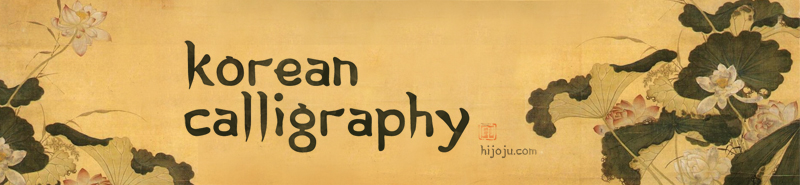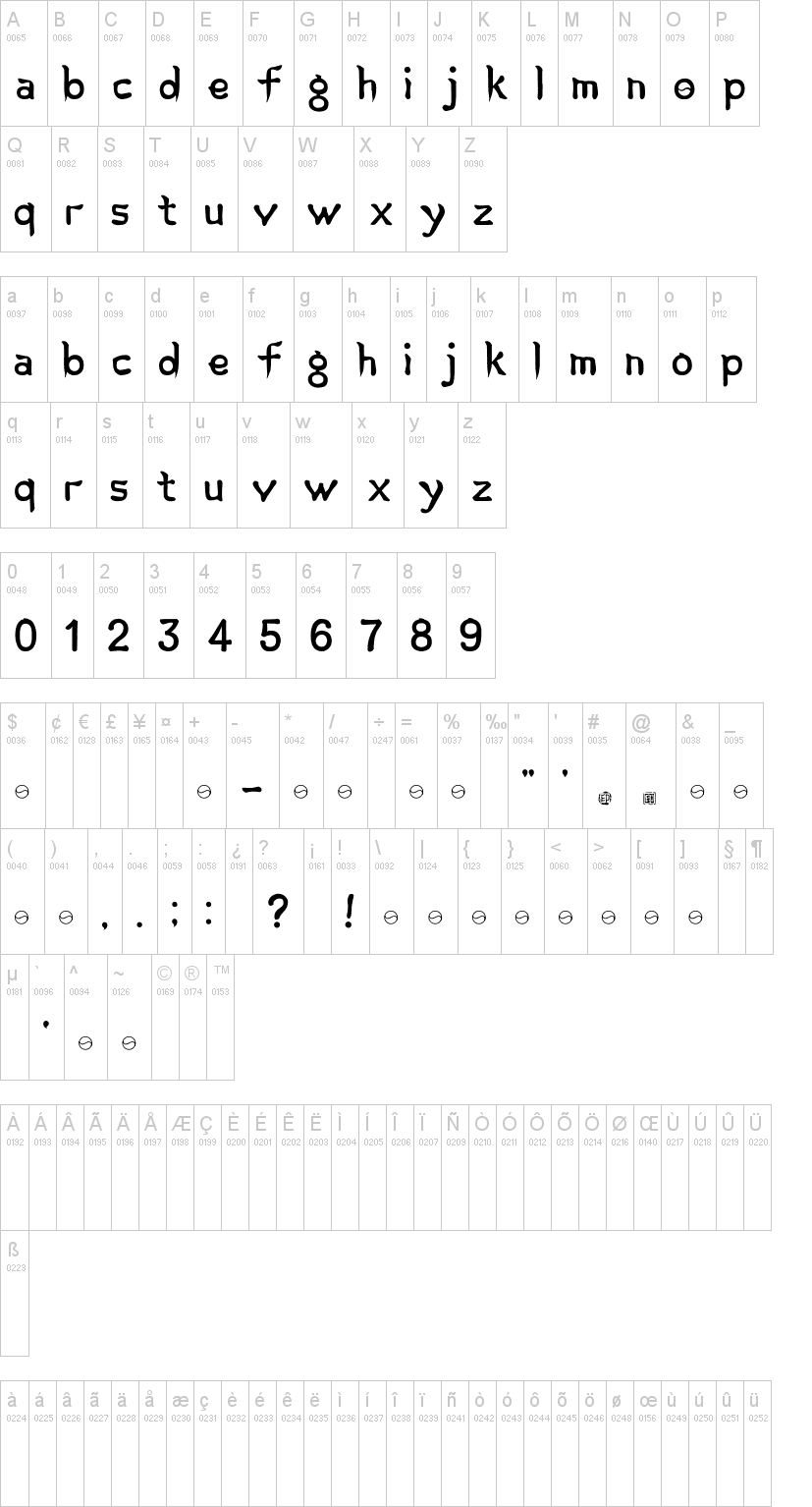
Note of the authorThis font is based on 'Hangeul', the Korean alphabet, and reflects calligraphy typeface.
I recommend that you use this font if you want to create an oriental mood.